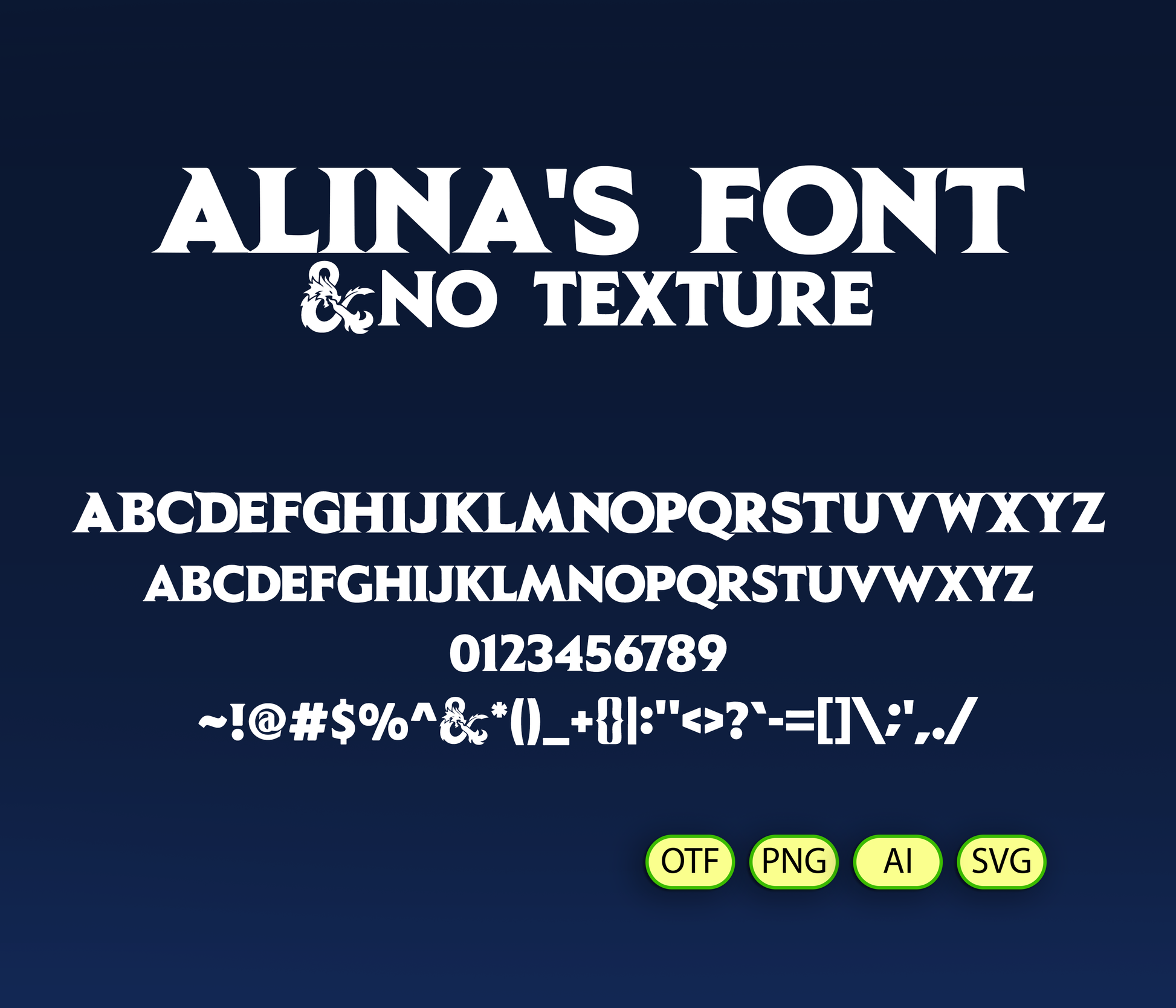
Legendary Fantasy Font
Embark on Epic Quests with the Legendary Fantasy-Inspired Font
Dive into the world of adventure and fantasy with our Legendary Fantasy-inspired font. Perfect for fans, game masters, event planners, and designers looking to capture the essence of epic quests and heroic deeds, this font brings the mystique and excitement of legendary tabletop games to your projects. Whether you're creating event invitations, designing themed merchandise, or crafting digital content, our Legendary Fantasy font ensures your projects resonate with the magic and grandeur of this timeless fantasy universe.
Our Legendary Fantasy-inspired font features bold, medieval lines and intricate details that reflect the rich lore and adventurous spirit of the game. This versatile font is ideal for a variety of applications:
1. Event Invitations: Perfect for creating captivating invites for game nights, fantasy-themed parties, or medieval fairs.
2. Merchandise Design: Ideal for designing t-shirts, posters, and accessories that capture the essence of legendary fantasy.
3. Digital Media: Enhance websites, blogs, and social media content with immersive headers and graphics.
4. Educational Materials: Use in presentations, worksheets, and educational content focused on storytelling, mythology, or role-playing games.
5. Personal Projects: Add a touch of fantasy to scrapbooking, DIY crafts, or home decor inspired by epic adventures and mythical creatures.
Our Legendary Fantasy font not only pays tribute to the timeless genre but also empowers you to infuse your designs with its magical and adventurous spirit. Whether you’re crafting promotional materials, designing unique merchandise, or adding a fantastical touch to personal projects, this font allows you to communicate with the grandeur and excitement that define legendary fantasy. Ready to embark on a creative journey filled with adventure and magic? This font is your key to unlocking a world of epic and captivating design.